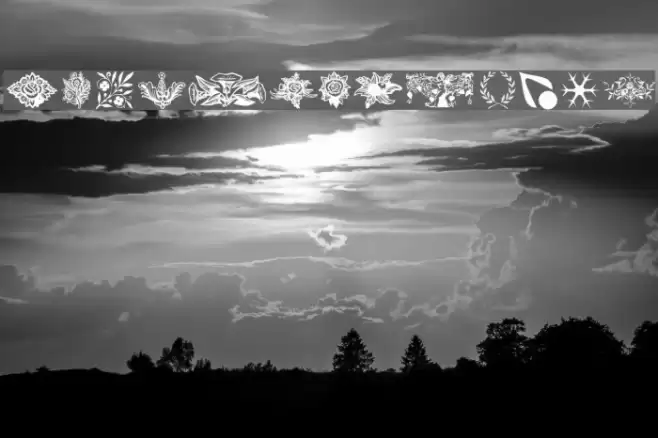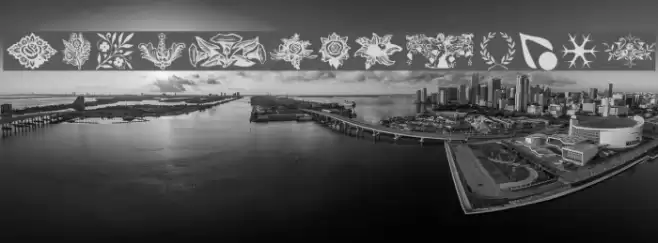
MixedBag Font
MixedBag Description
A decorative dingbat and symbol collection featuring a variety of ornate floral motifs, geometric shapes, and abstract icons. The style is highly ornamental and diverse, with each glyph presenting a unique design rather than a standard alphabet or numeral set.
A diverse set of decorative symbols and dingbats from Uncategorized fonts.
- Font: MixedBag
- Proposed Projects: Invitations, certificates, decorative borders, scrapbooking, logo accents, and artistic design projects.
- Overall Style: Decorative, Ornamental, Eclectic
- Use Case: Decorative elements, Borders, Accents, Icons